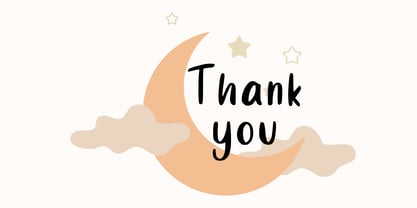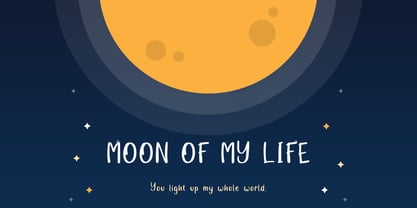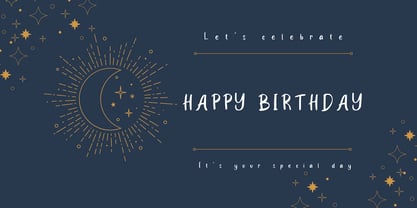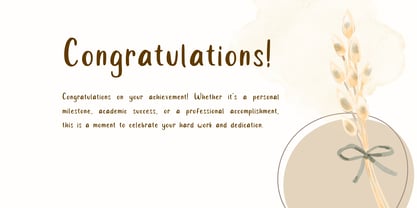
Moon Whisper
by Aisyah
The Moon Whisper Font Family was designed by Nur Aiysah Amalia and published by Aisyah. Moon Whisper contains 1 styles. More about this family
Moon Whisper is a charming handwriting font with a soft, whimsical style. Its smooth, playful curves evoke a dreamy, magical feel, making it perfect for creative projects, invitations, branding, and cozy designs that need a touch of warmth and wonder.
Designers: Nur Aiysah Amalia
Foundry: Aisyah